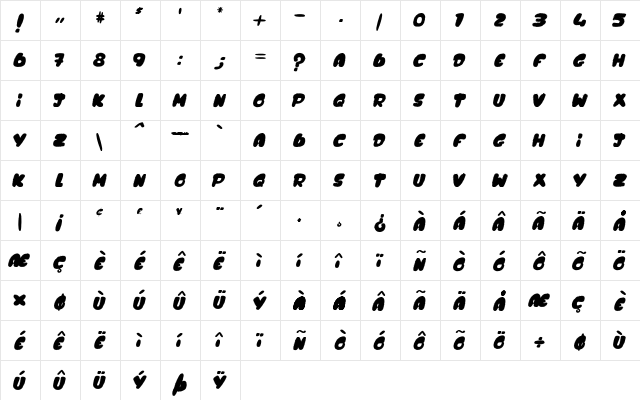
DOCTEUR TACOTAC Regular
| Foundry | Cataleya Butcher |
| Designer | CAT |
Design Context for DOCTEUR TACOTAC Typeface
DOCTEUR TACOTAC is a composed and adaptable typeface that performs quietly and consistently across a wide range of design contexts.